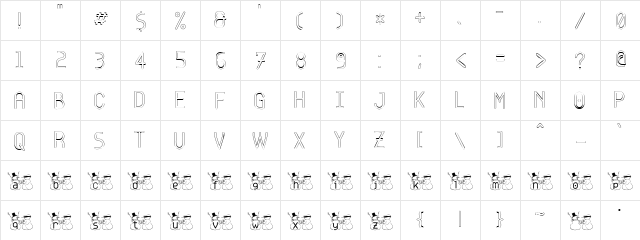
FrostyReception Regular
Design Context for FrostyReception Typeface
FrostyReception is a composed and adaptable typeface that performs quietly and consistently across a wide range of design contexts.